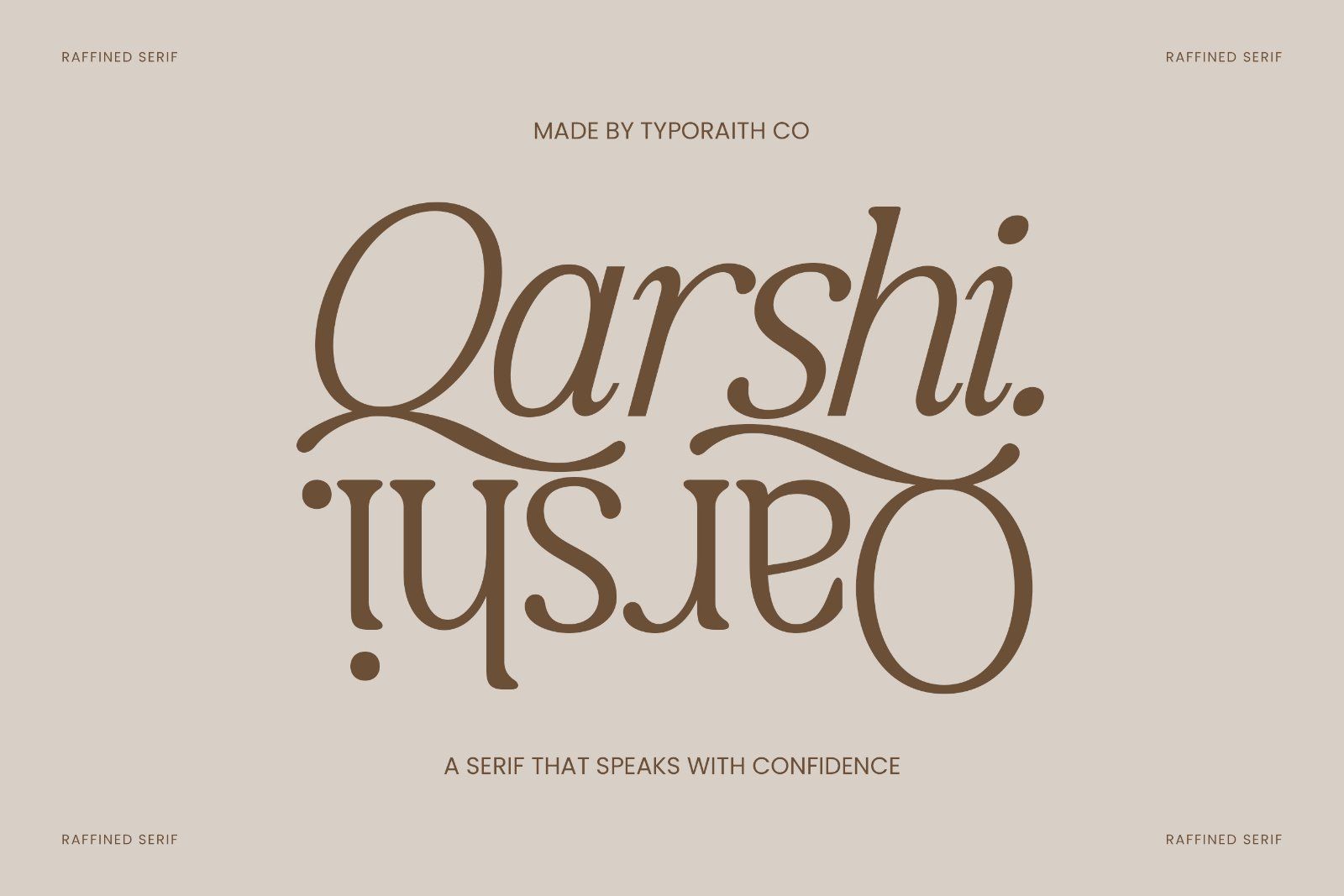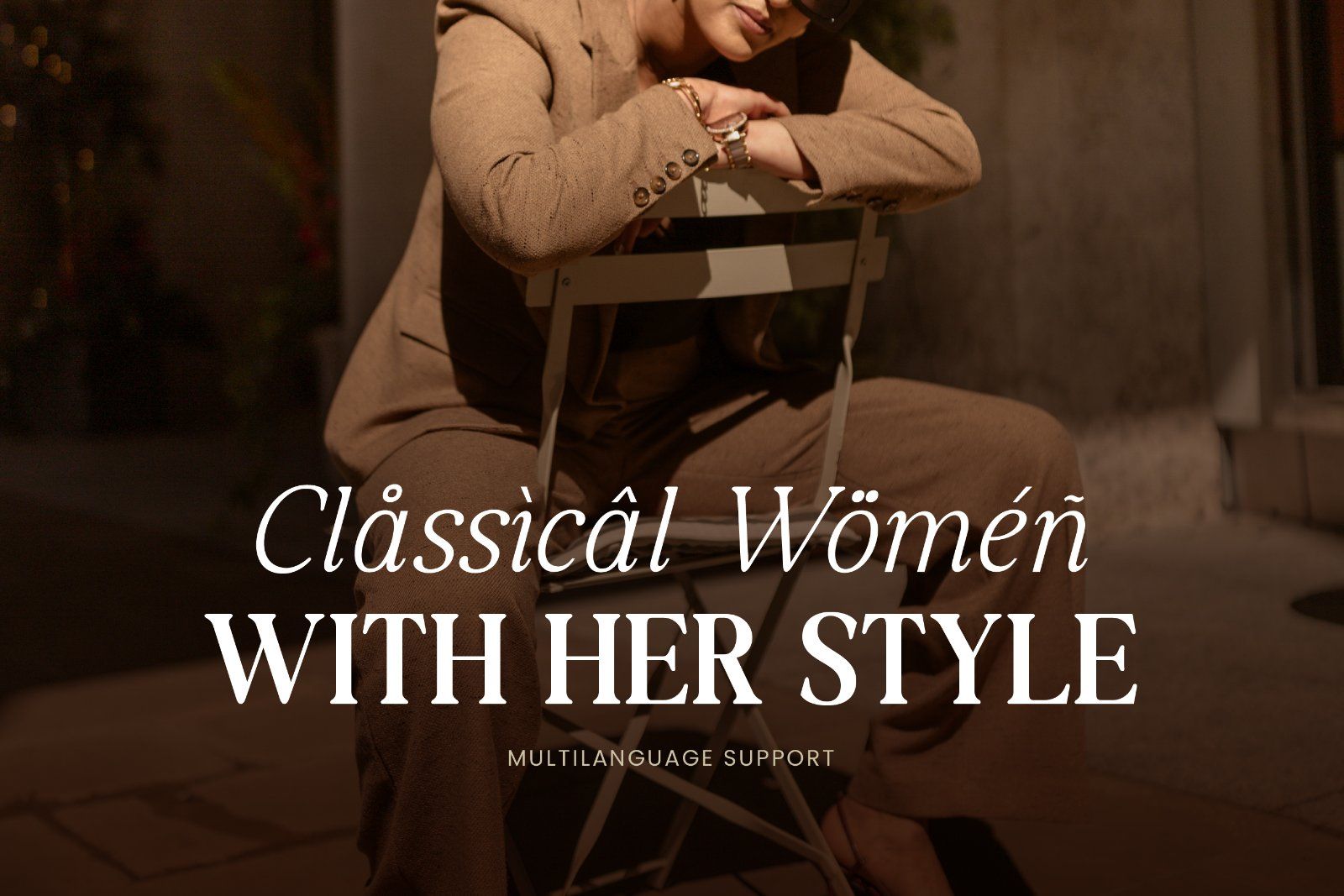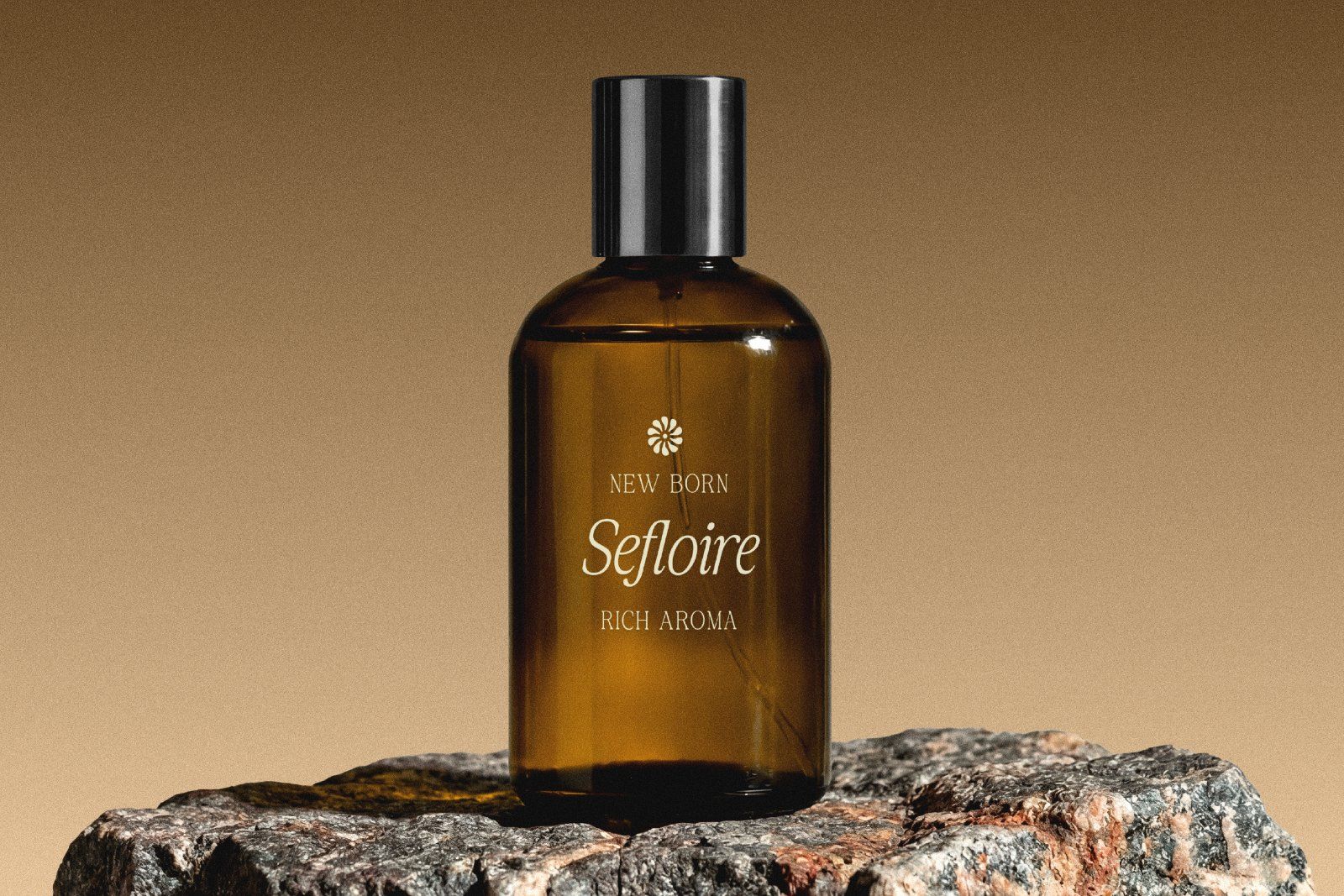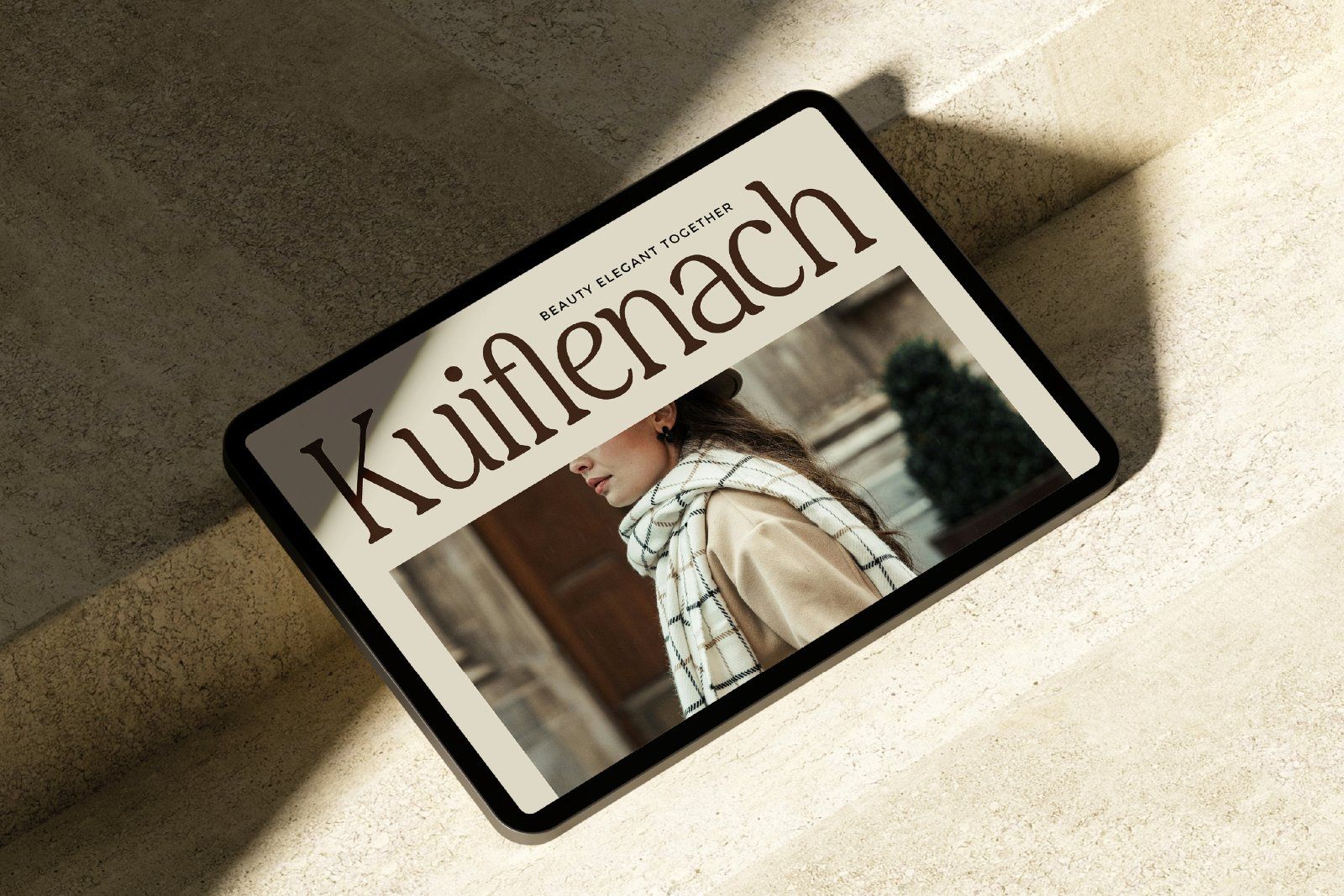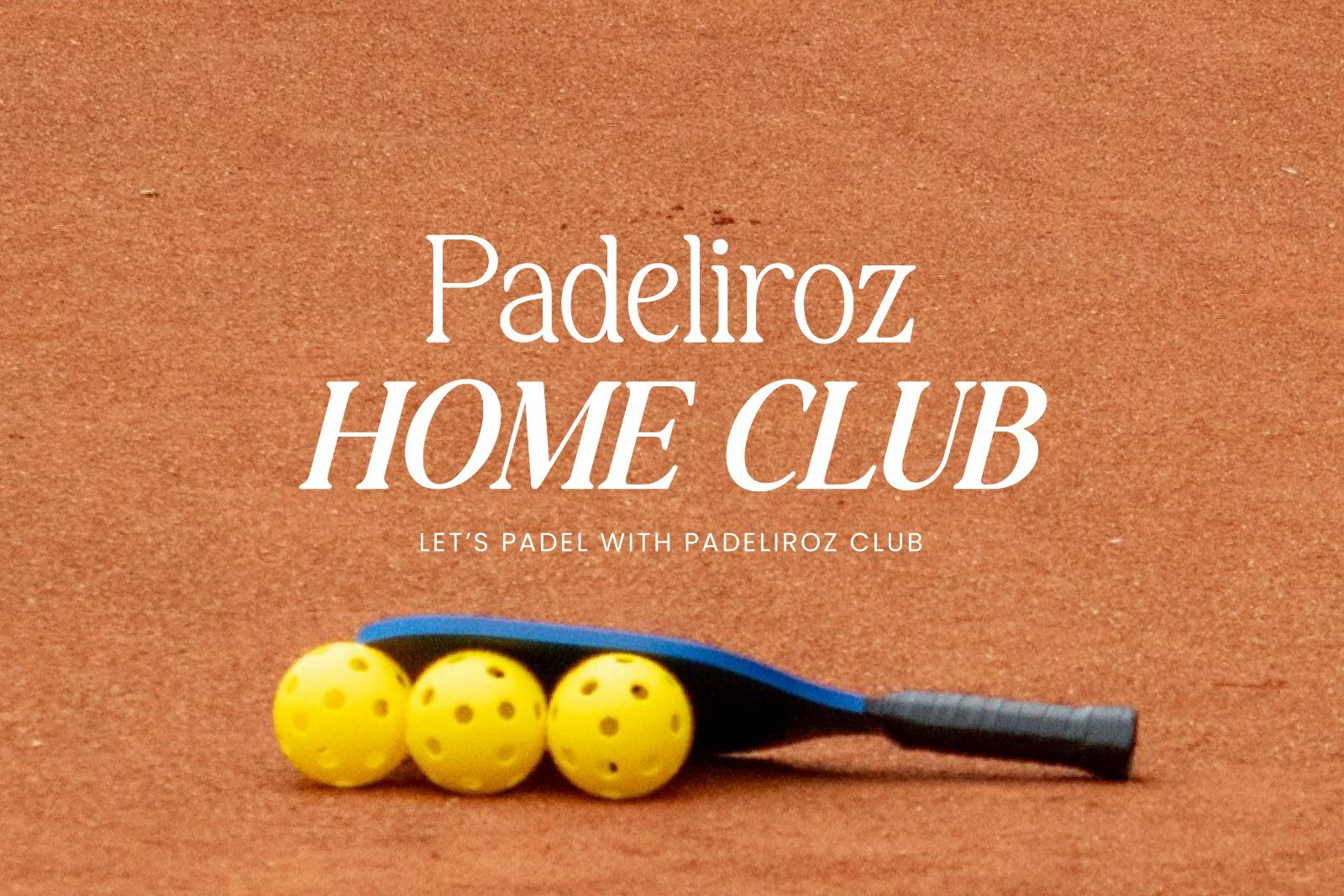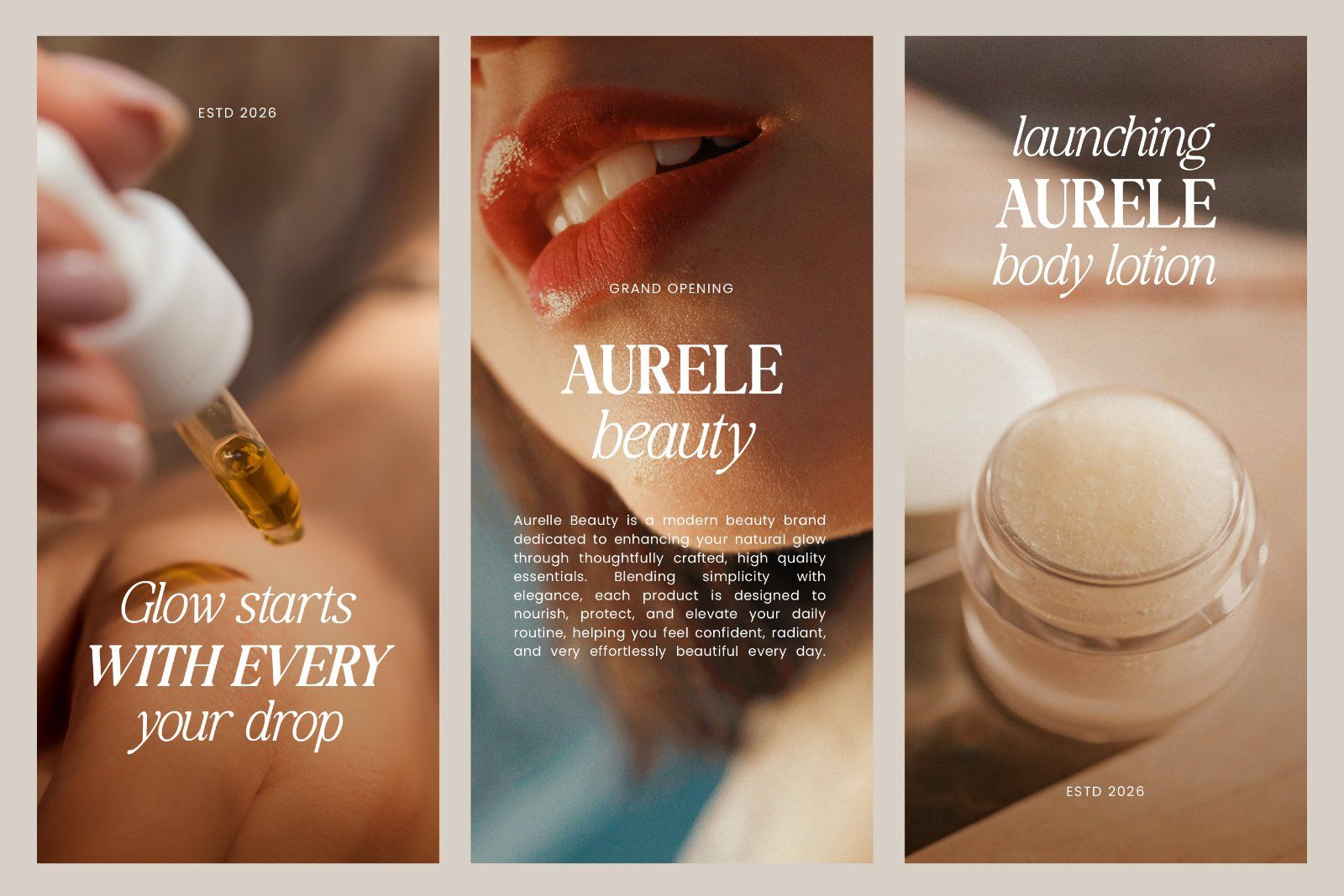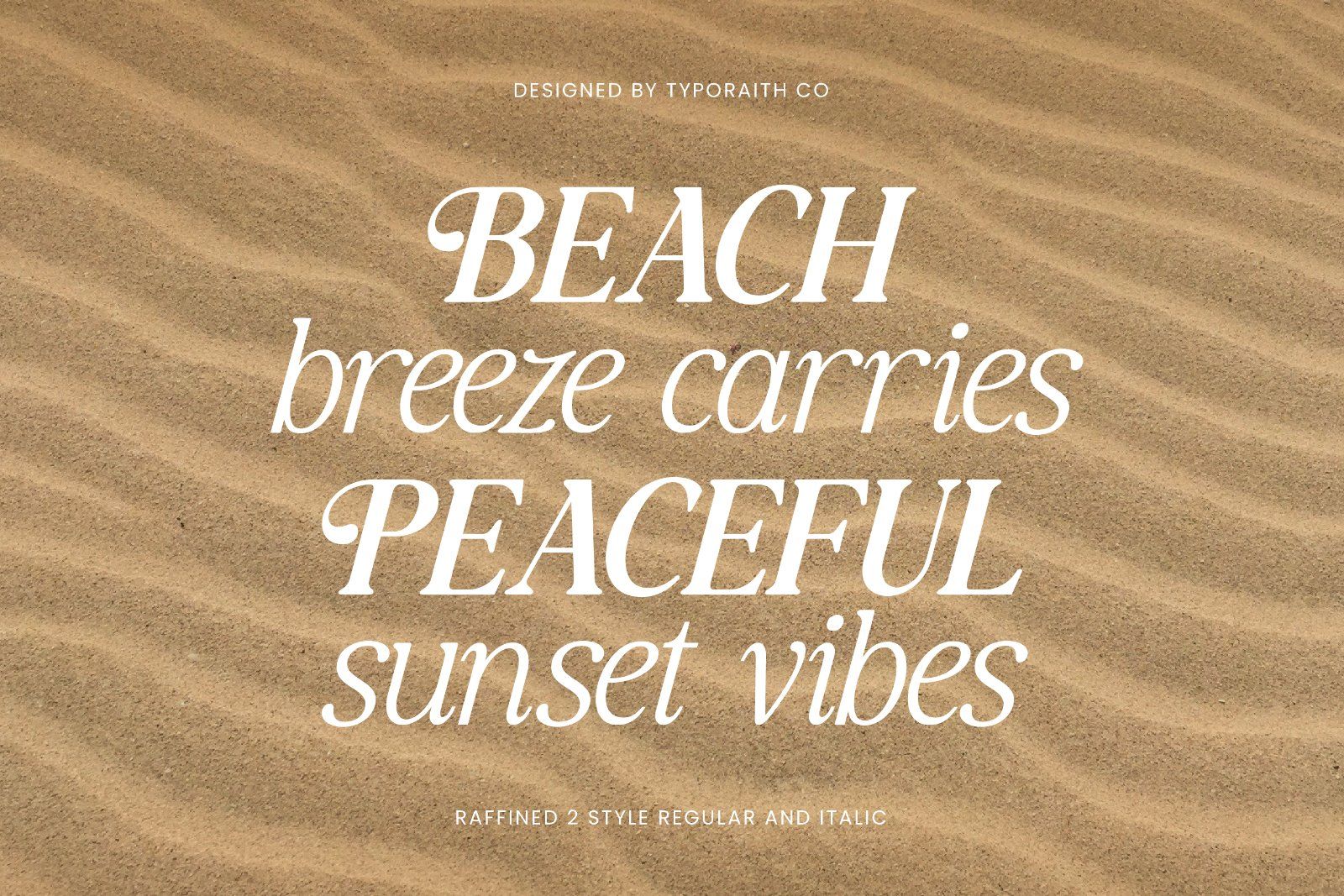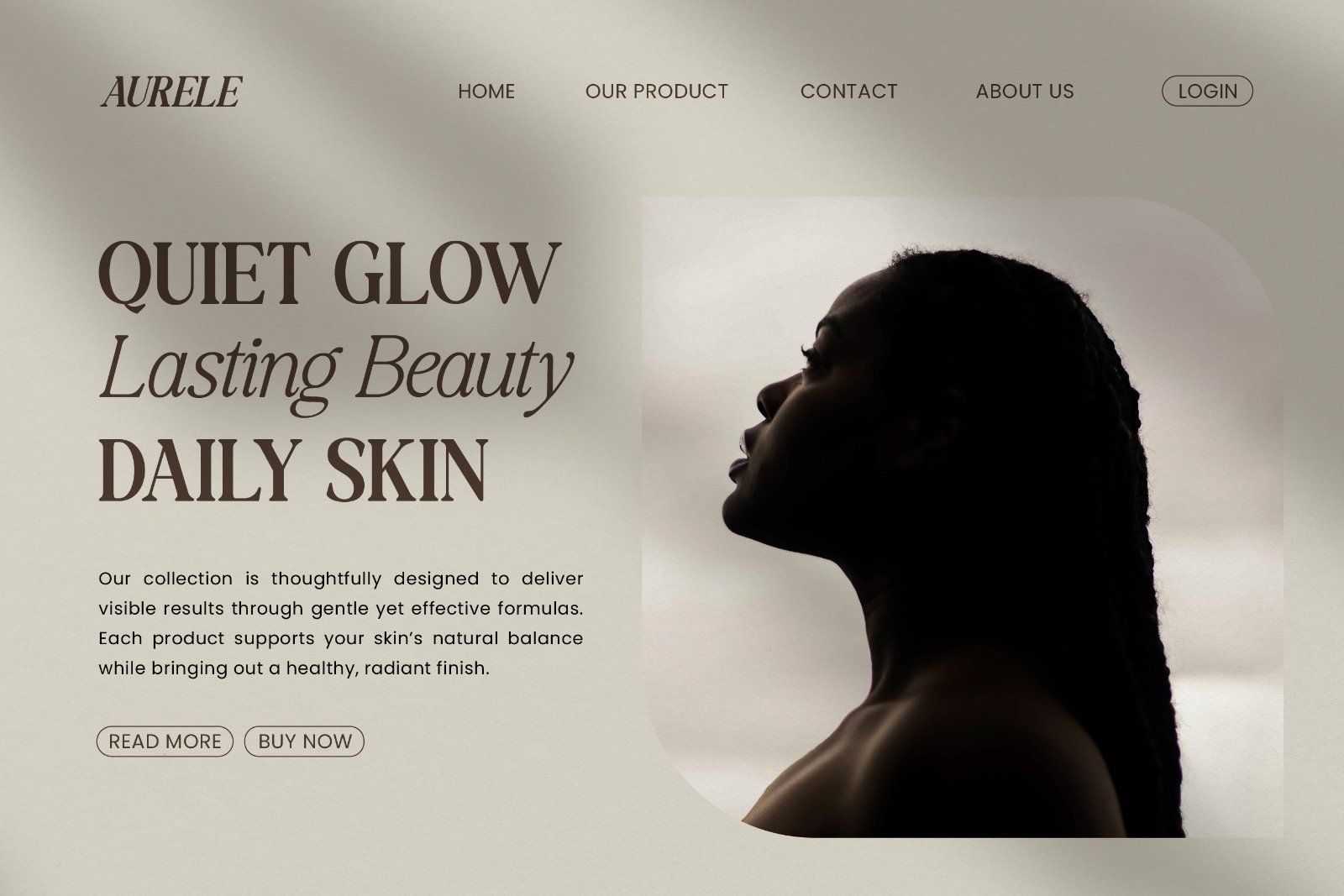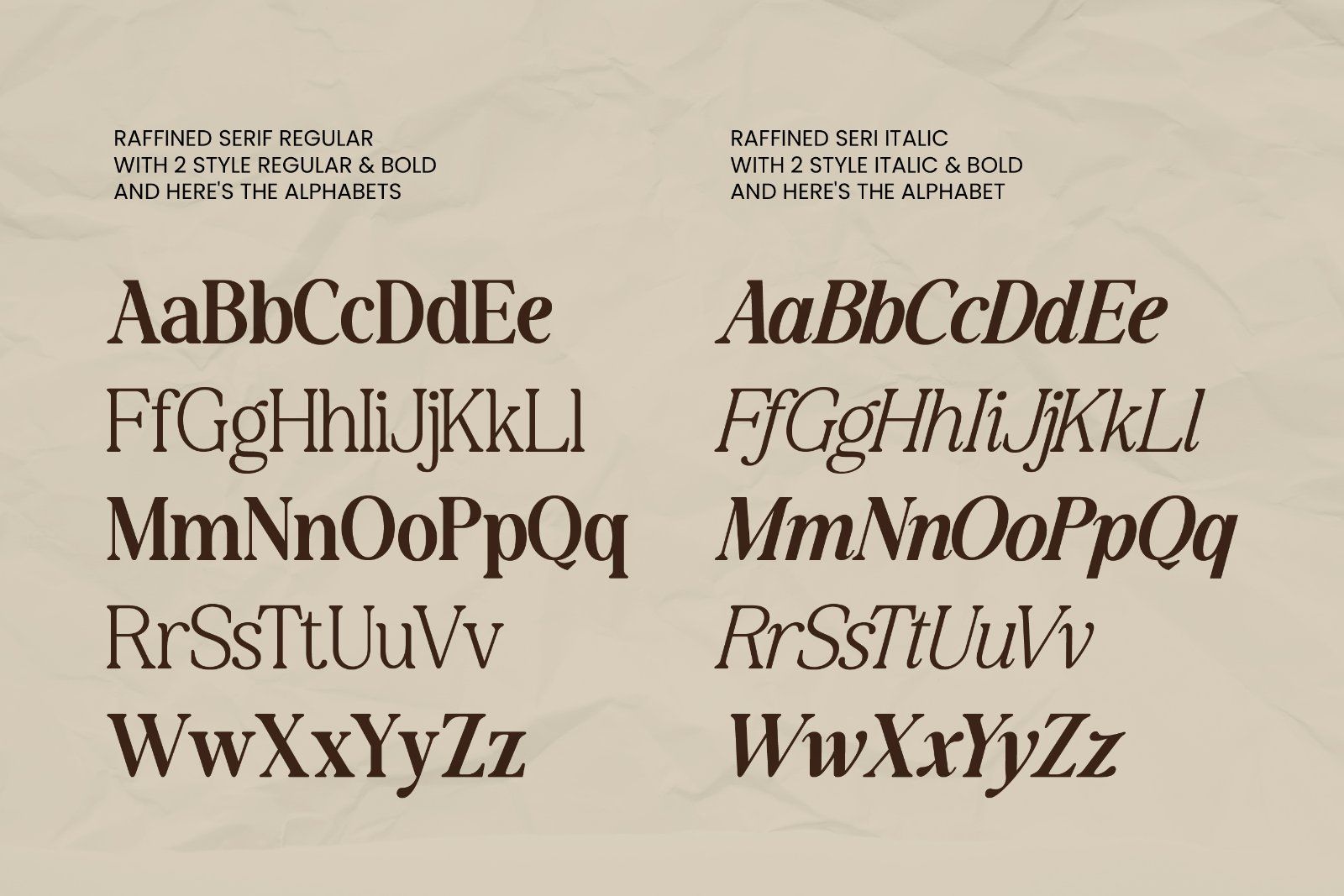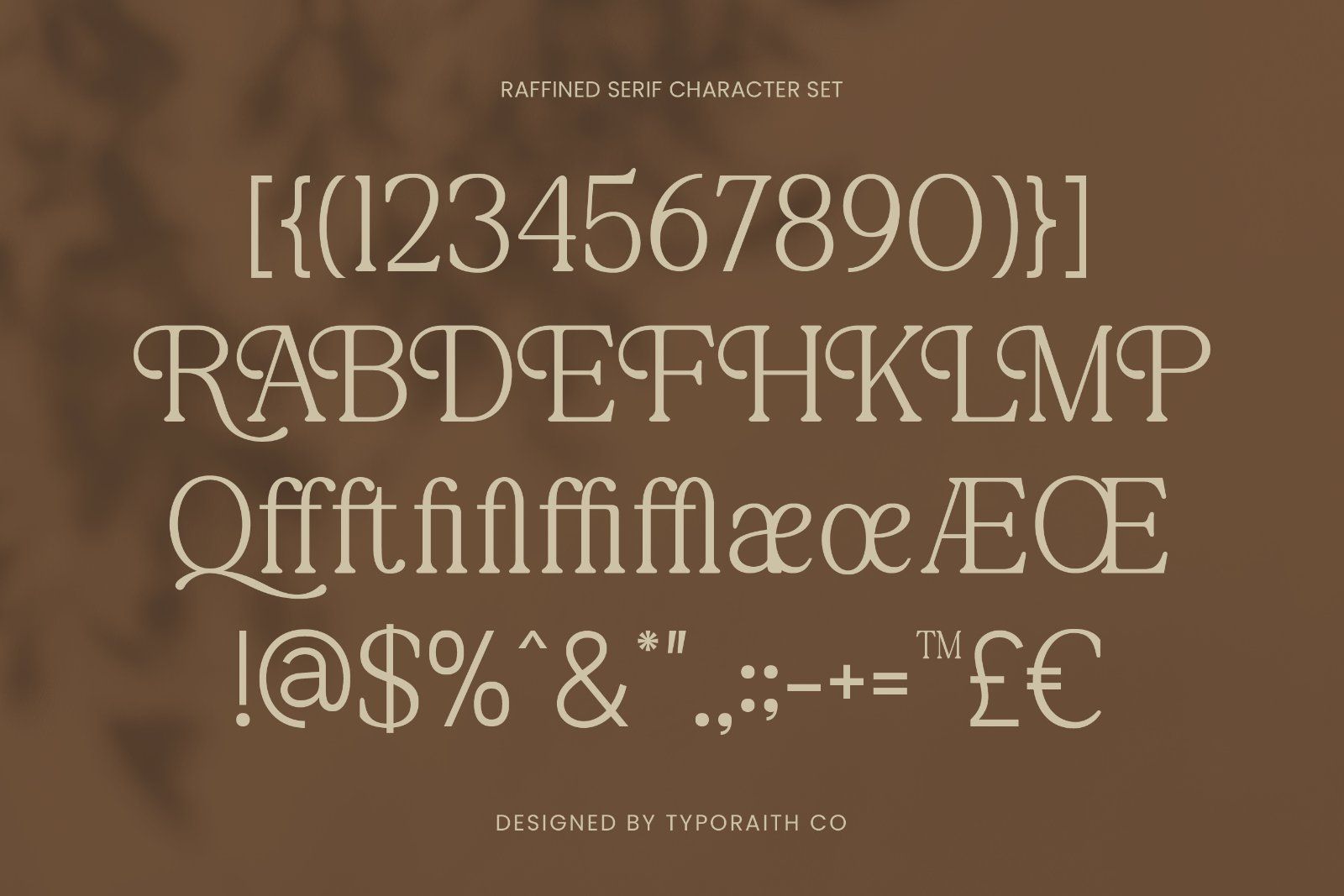
Raffined Serif is a sophisticated display serif font designed to bring elegance, confidence, and timeless beauty to every project. Featuring strong high-contrast letterforms with graceful curves, sharp serifs, and stunning italic styles, this typeface is perfect for premium branding and editorial designs.
Created for designers who want a luxurious and modern serif with personality, Raffined Serif blends classic refinement with contemporary aesthetics. Whether you're crafting fashion campaigns, magazine headlines, wedding stationery, logos, packaging, or social media content, this font delivers a polished and upscale look instantly.
• Uppercase & Lowercase Characters
• Numbers & Punctuation
• Ligatures & Alternates
• Italic Styles
• 4 Font Styles Included
Perfect For:
• Luxury Branding
• Editorial & Magazine Layouts
• Fashion Logos
• Wedding Invitations
• Beauty Product Packaging
• Social Media Quotes
• High-End Advertising
Bring charm, sophistication, and premium style to your next design project with Raffined Serif a font that speaks with confidence.